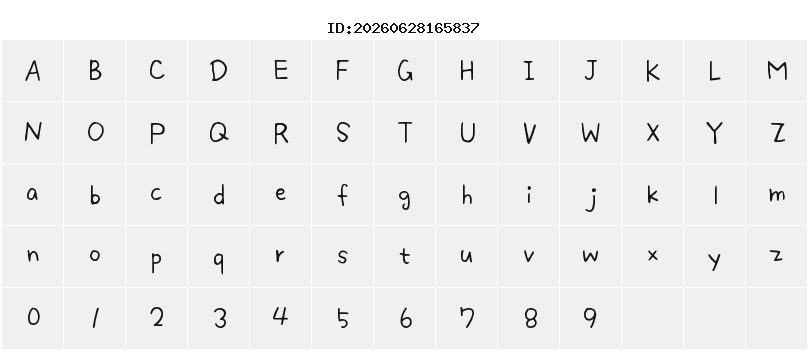
Aa弯弯 Preview
• Font Name: Aa弯弯
• Font Style: 常规
• Full Font Name: Aa弯弯
• Description: AaWanWan is a fantastic font with excellent features designed for user interfaces and electronic communications.
About Aa弯弯.ttf
Aa弯弯.ttf is a modern, elegant sans-serif font designed for ultimate readability and visual harmony. Perfect for branding, headlines, web design, and print materials.